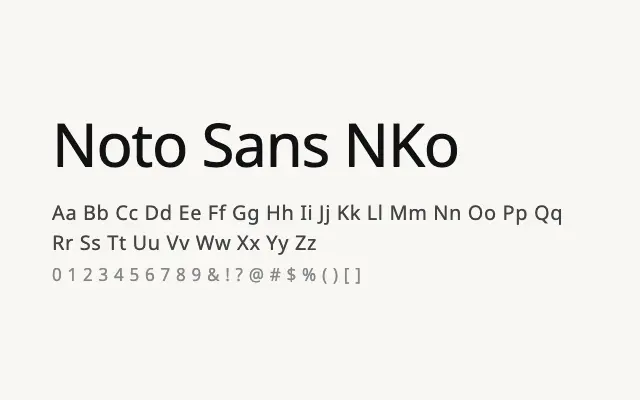
Noto Sans NKo
A clean, utilitarian sans-serif providing essential NKo script support as part of Google's universal Noto type system.
Noto Sans NKo serves the NKo script, an alphabet created in 1949 for writing Manding languages across West Africa. Its single Regular weight reflects the functional, coverage-first philosophy of the broader Noto project. Best suited to body text, digital interfaces, and any context requiring reliable multilingual rendering.
Part of Google's Noto project, designed to eliminate tofu (missing glyph boxes) across all scripts. Supports the NKo script used for Manding languages of West Africa, with clean, neutral letterforms.